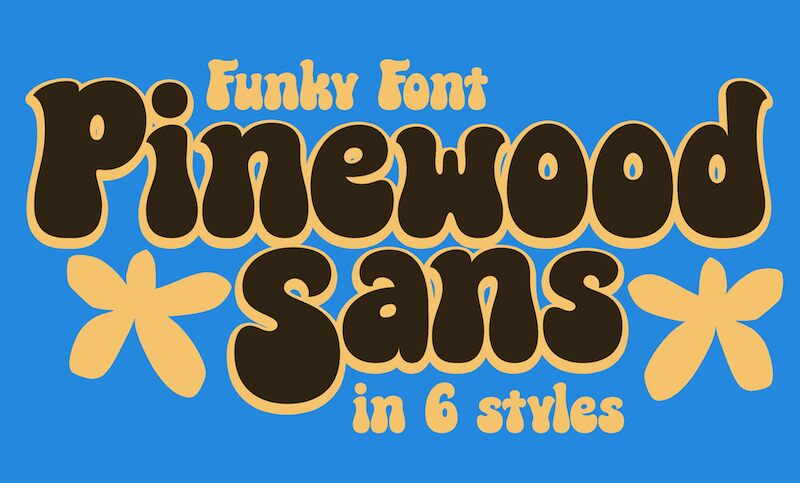
Pinewood Sans, designed by Mans Greback, is a groovy display font that adds a touch of retro charm to any project. With its extra-bold weight, this font demands attention and stands out on posters, album covers, and branding materials. Its playful curves and unique character make Pinewood Sans perfect for designing eye-catching logos or creating vintage-inspired packaging. Whether you're working on a music festival poster or a hipster-themed website, this font is sure to bring a dose of funky coolness to your designs. Get ready to groove with Pinewood Sans!
Pinewood Sans is a funky, bold, and playful typeface that encapsulates the retro, hippie spirit with a touch of graffiti and childish charm. This unique font brings a sense of fun and whimsy to your designs.